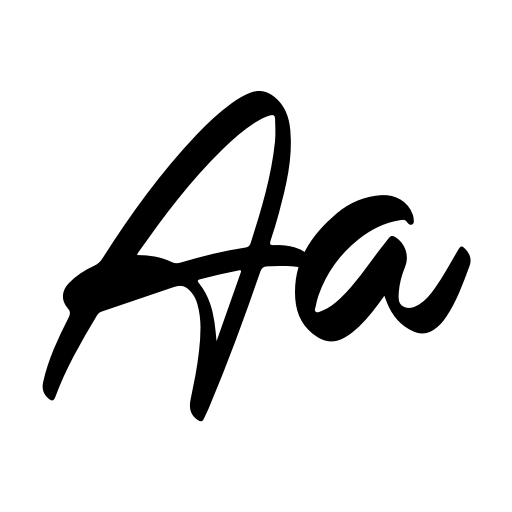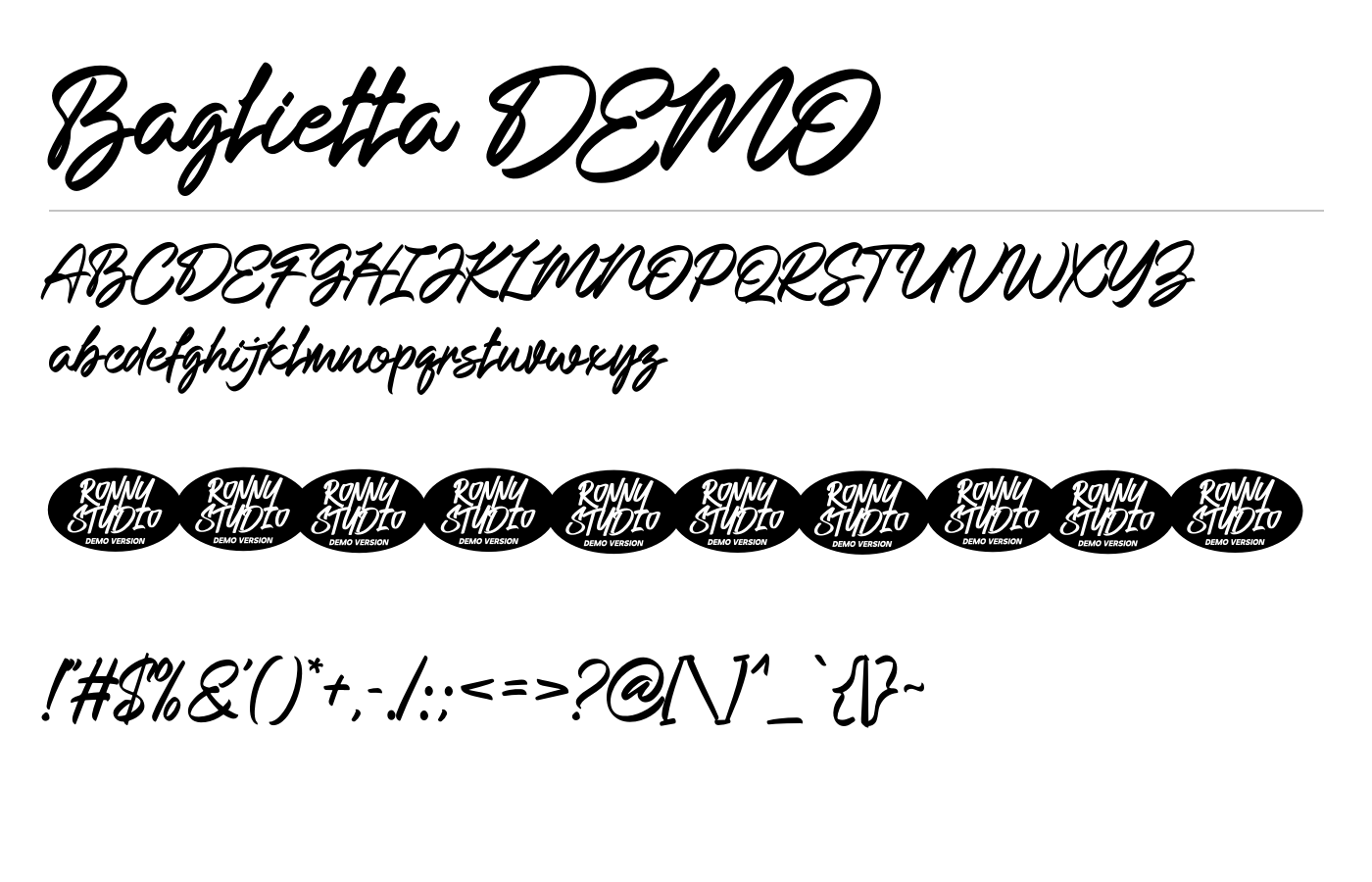
Baglietta DEMO is a lively and stylish script font with a bold, hand-drawn feel that captures playful elegance and personal flair. Its energetic strokes and casual letterforms make it ideal for branding, logos, invitations, and creative projects that seek a friendly yet confident look. This font brings a natural, handwritten charm that stands out in both digital and print designs.
Baglietta DEMO Font
About Baglietta DEMO Font
| Font family | Baglietta DEMO Font |
| Designer | Rony Rizki Jaya |